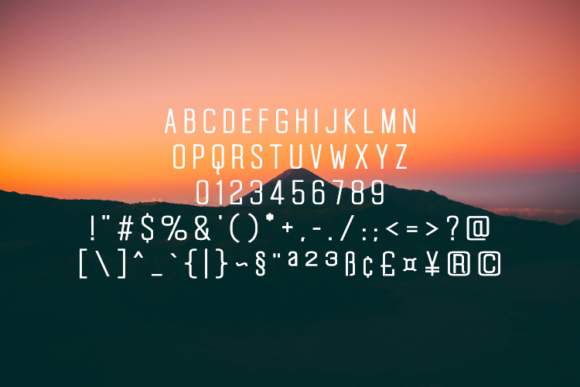
Introducing Grahawood Font: The Ultimate Modern Sans Serif for Designers
Are you on the hunt for a font that exudes modernity and sophistication? Look no further than Grahawood Font, a stunning sans serif font that is sure to elevate your designs to the next level. With its clean lines, elegant aesthetic, and versatile all-caps characters, Grahawood is the perfect choice for designers, crafters, and branding enthusiasts alike.
What Makes Grahawood Font So Special?
Grahawood Font is a masterfully designed sans serif font that boasts a range of characteristics that set it apart from the rest. Here are just a few reasons why Grahawood is a must-have for any designer:
- Modern and Sophisticated: Grahawood’s sleek, modern design makes it perfect for projects that require a touch of sophistication and elegance.
- All-Caps Characters: The font features all-caps characters that are specifically designed to make a statement. Whether you’re creating a logo, branding materials, or packaging design, Grahawood’s all-caps characters are sure to turn heads.
- Versatile: Grahawood is incredibly versatile, making it suitable for a wide range of design applications, from logos and branding to packaging design, posters, and more.
- Elegant Aesthetic: The font’s clean lines, subtle curves, and carefully crafted letterforms create an elegant aesthetic that is sure to enhance any design.
Perfect for Logos, Branding, and Packaging Design
Grahawood Font is particularly well-suited for logos, branding, and packaging design. The font’s all-caps characters and modern aesthetic make it perfect for creating eye-catching logos and branding materials that are sure to stand out. Additionally, Grahawood’s clean lines and elegant aesthetic make it an excellent choice for packaging design, where clarity and visual appeal are essential.
Why Choose Grahawood Font?
With so many fonts on the market, why choose Grahawood? Here are just a few reasons why Grahawood Font stands out from the rest:
- Unique Design: Grahawood’s unique design sets it apart from other sans serif fonts on the market. The font’s carefully crafted letterforms and elegant aesthetic make it a true standout.
- High-Quality: Grahawood Font is a high-quality font that is designed to deliver exceptional results. Whether you’re working on a large-scale design project or a small personal project, Grahawood is sure to impress.
Tips for Using Grahawood Font
Here are a few tips for getting the most out of Grahawood Font:
- Experiment with Different Sizes: Grahawood Font looks great in a variety of sizes, from small and delicate to large and bold. Experiment with different sizes to find the one that works best for your design.
- Pair with Other Fonts: Grahawood Font pairs well with a range of other fonts, from elegant scripts to bold sans serifs. Experiment with different font combinations to find the one that works best for your design.
- Use in Combination with Images: Grahawood Font looks great in combination with images, particularly those with clean lines and simple compositions. Experiment with different image combinations to find the one that works best for your design.
In conclusion, Grahawood Font is a modern and sophisticated sans serif font that is sure to elevate your designs to the next level. With its clean lines, elegant aesthetic, and versatile all-caps characters, Grahawood is the perfect choice for designers, crafters, and branding enthusiasts alike. Whether you’re creating logos, branding materials, packaging design, or more, Grahawood Font is a true must-have.